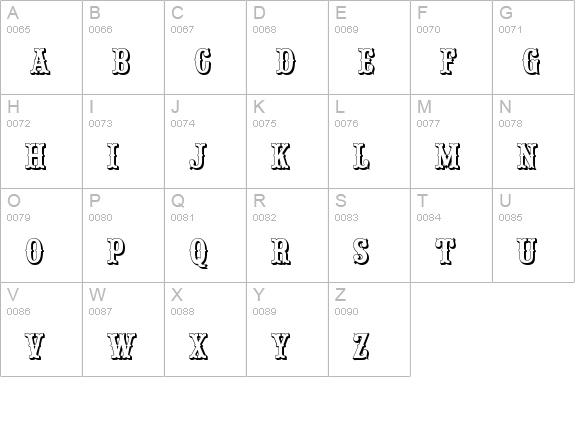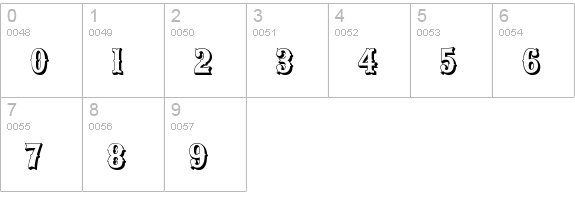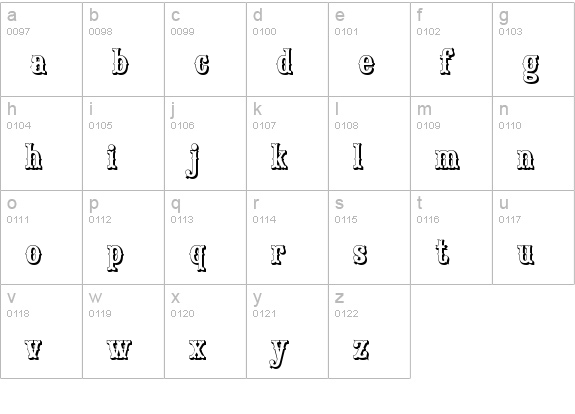
Introducing Saloon Girl Open, a stunning and captivating font that embodies the essence of the wild west. With its ornate design and elegant curves, this font is perfect for adding a touch of vintage charm to your projects. Whether you're working on a poster, logo, or invitation, Saloon Girl Open is sure to make a statement. What makes Saloon Girl Open even more enticing is that it is completely free. Yes, you read that right! This incredible font is freely available to download at FontsMarket.com. Now you can elevate your designs without breaking the bank. Saloon Girl Open is a versatile font that can be used in a variety of contexts. Its bold and expressive nature adds a sense of drama and flair to any text. The carefully crafted letterforms ensure legibility, making it suitable for both display purposes and body text. The intricate details of Saloon Girl Open make it a true work of art. The serifs, swashes, and decorative elements give it a unique personality, evoking images of saloon doors swinging open and the sound of spurs clinking on wooden floors. This font truly captures the spirit of the old west. So why wait? Download Saloon Girl Open today and unleash your creativity. Whether you're designing for a western-themed event, creating a vintage-inspired brand identity, or simply adding a touch of nostalgia to your designs, this font is a must-have. And with its free availability at FontsMarket.com, there's no reason not to give it a try. Get ready to transport your audience to the wild west with the enchanting Saloon Girl Open font.